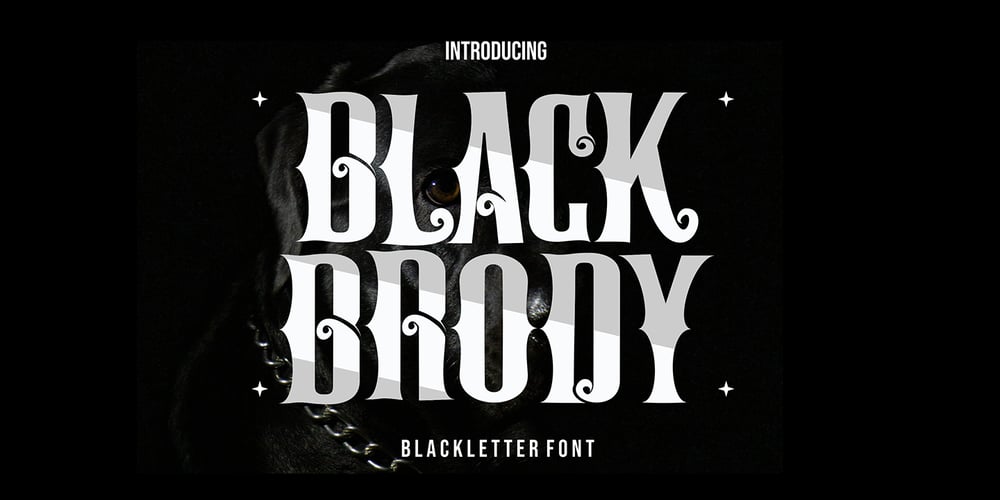
Black Brody Font Family was designed by Sipanji and published by Sipanji21. Black Brody contains 2 styles and family package options. Black Brody Is Black Letter Font, this Font creating manually, by drawing until getting vector with Ai. Black Brody was inspired by the Sword, all about the sword was inspired at every Uppercase. beside that, Black Brody also inspired by historical film, game, mythology, and other.Black Brody Black Letter expected you will find fantastic gaming experience and past stories by this font and with two style font, regular and italic font.Black Brody is very suitable for anything your design product, like as Logos, Trade Mark, Poster, Business Cards, Game Magazine, Gift Cards, Cloth, T-Shirt, Tattoo Brands, Coffee, Restaurant, Food Car, CD and DVD Cover, Wall, Frame, and typing in your PC. This Font you can use and Apply for anything you want.